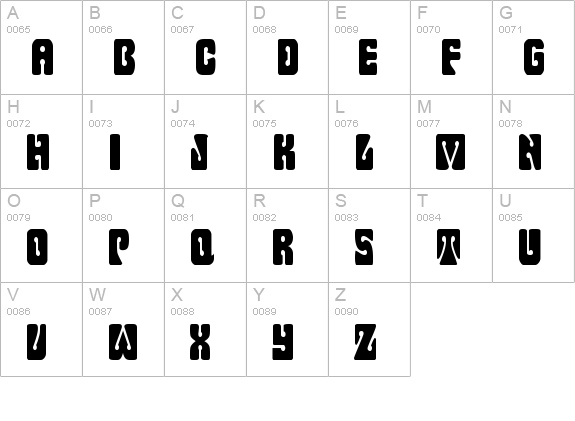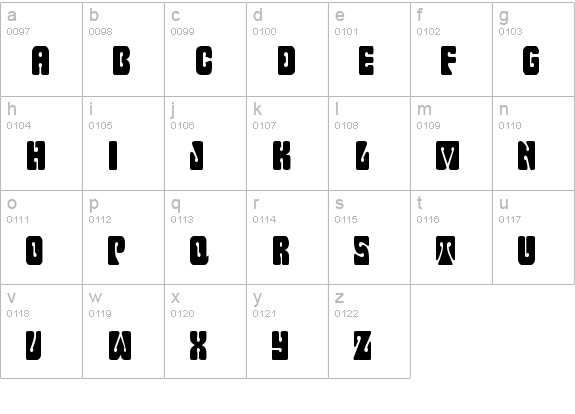
WavyOrnamentalCondensed Font Details
WavyOrnamentalCondensed is a stunning and intricate font that will add a touch of elegance and sophistication to any design project. This font features beautifully crafted wave-like ornaments that gracefully flow through each letter, creating a unique and mesmerizing visual experience. The WavyOrnamentalCondensed font is perfect for a wide range of creative applications, including invitations, logos, branding, packaging, and more. Its condensed design allows for maximum impact, making it ideal for headlines and titles that need to grab attention. But what sets WavyOrnamentalCondensed apart is not just its captivating aesthetics, but also its availability. This font is freely available to download at FontsMarket.com, making it accessible to designers, artists, and enthusiasts alike. Whether you're a professional or just starting out, you can now enjoy the beauty and versatility of this font without any limitations. With WavyOrnamentalCondensed, you have the freedom to express your creativity without any restrictions. Its ornate details and graceful curves will elevate your designs, giving them a touch of sophistication and refinement. So why wait? Download WavyOrnamentalCondensed today and unlock the endless possibilities it offers for your next project.